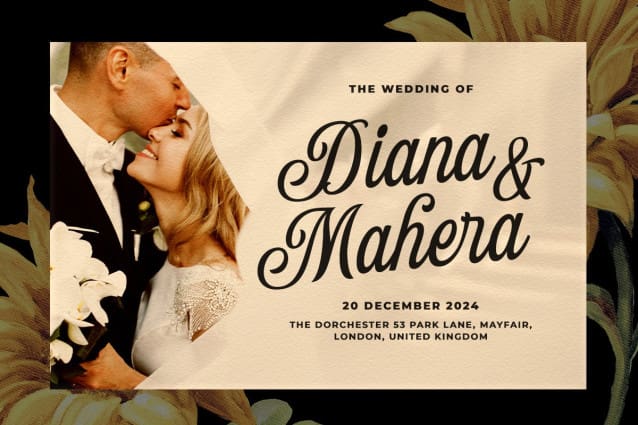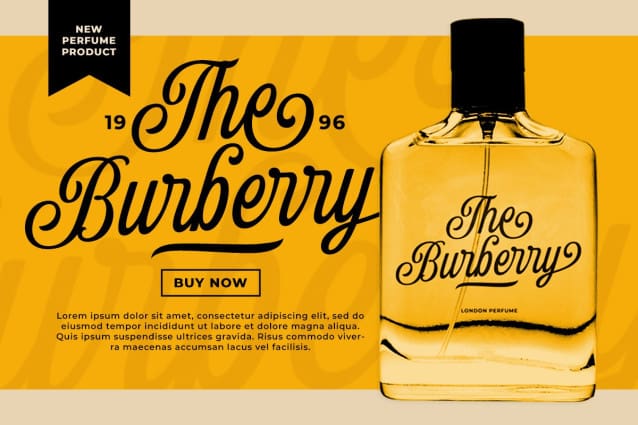
Bilearn Font
Bilearn Font, a modern script typeface with unique alternates and swashes. This font perfectly made to be applied especially in logo, and the other various formal forms such as invitations, labels, logos, magazines, books, greeting / wedding cards, packaging, fashion, make up, stationery, novels, labels or any type of advertising purpose.